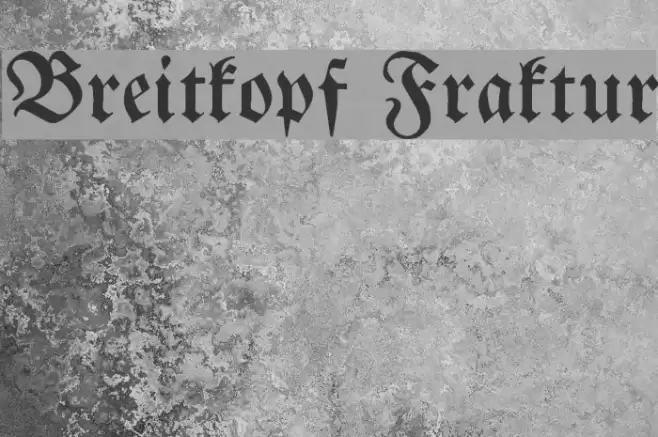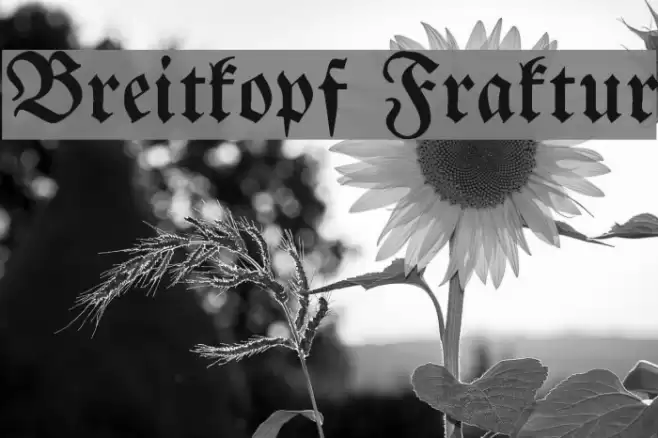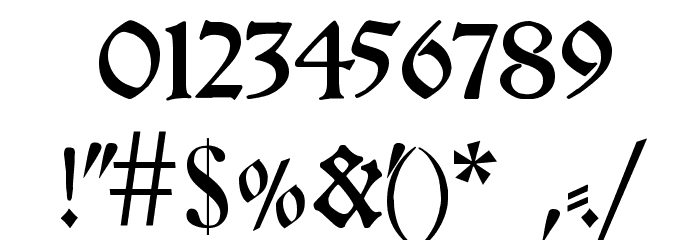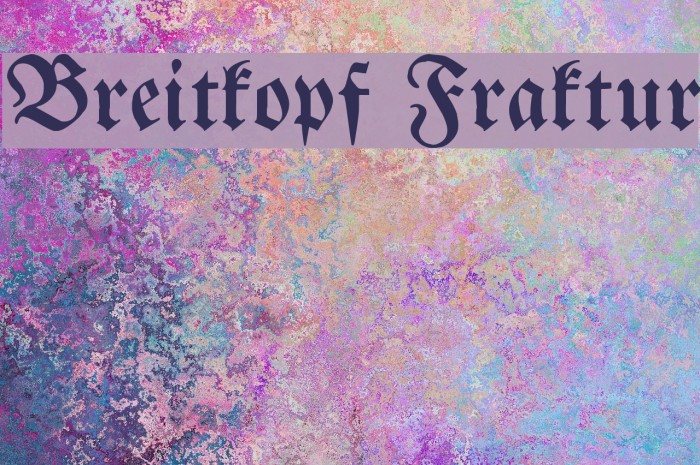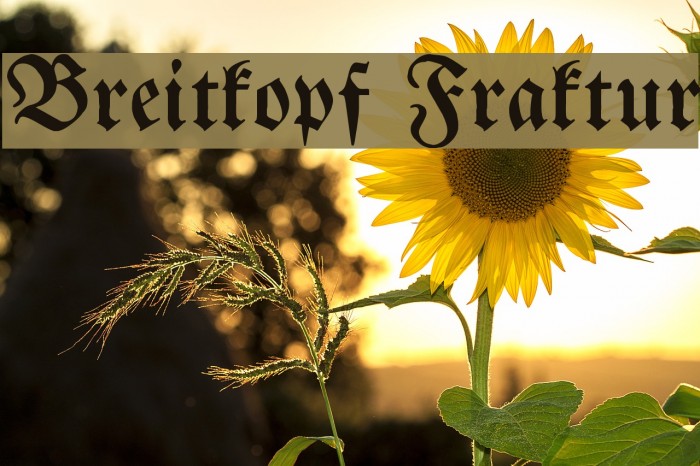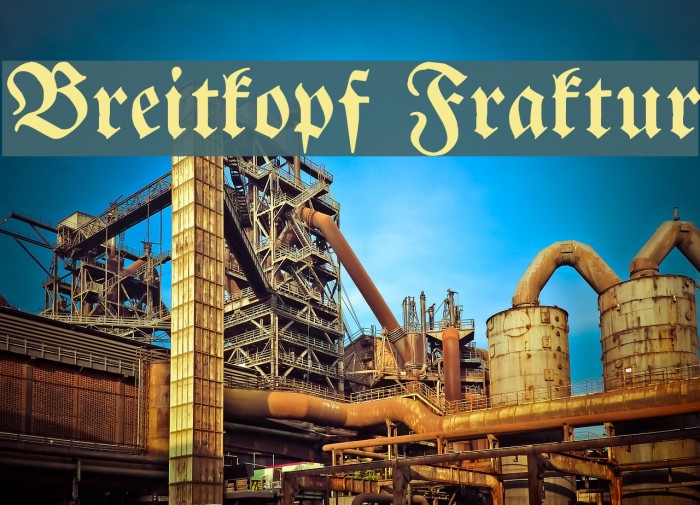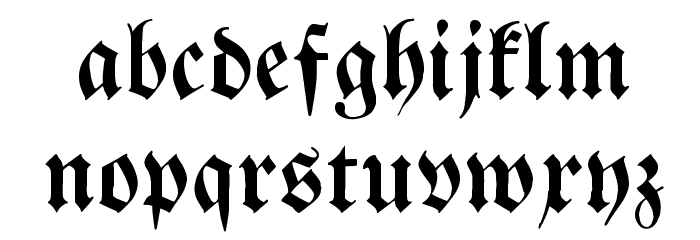
Breitkopf Fraktur Font
Breitkopf Fraktur Description
This font embodies the traditional elegance and intricate detailing characteristic of Blackletter typefaces. Its ornate and angular strokes create a sense of historical depth, reminiscent of medieval manuscripts and early printed books. The uppercase letters are bold and commanding, with sharp serifs and distinctive flourishes that enhance their visual impact. The lowercase letters maintain a consistent style, with a slightly condensed form that adds to the overall compactness of the text. Numerals are designed with the same attention to detail, ensuring they blend seamlessly with the alphabetic characters. Special characters retain the decorative flair, making them suitable for artistic and formal applications.
A traditional Blackletter font with ornate, angular strokes and historical elegance from Uncategorized fonts.
- Proposed Projects: Ideal for historical documents, certificates, book covers, and branding that requires a classic and authoritative look.
- Character Spacing: Tight
- Overall Style: Vintage
- Use Case: Headlines, Logos, Certificates